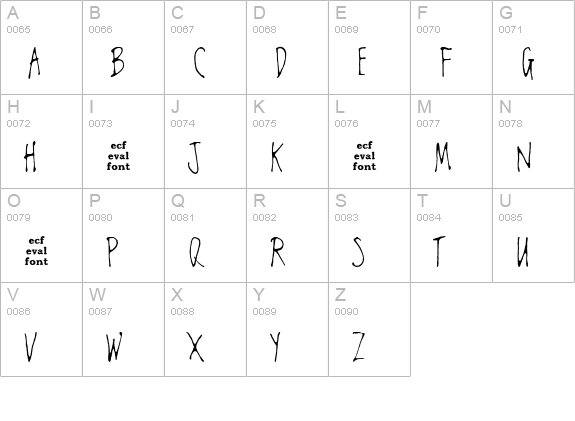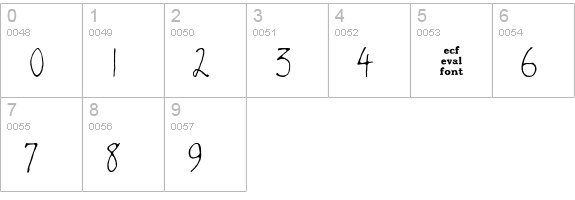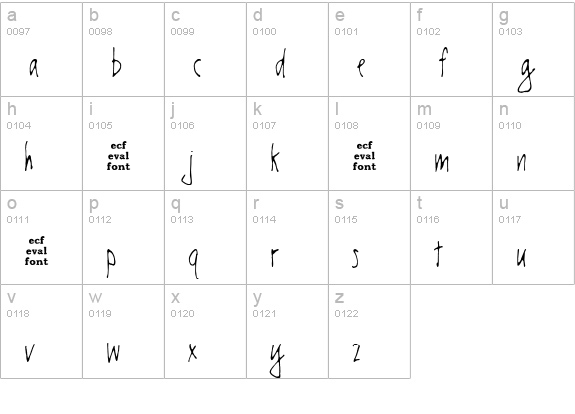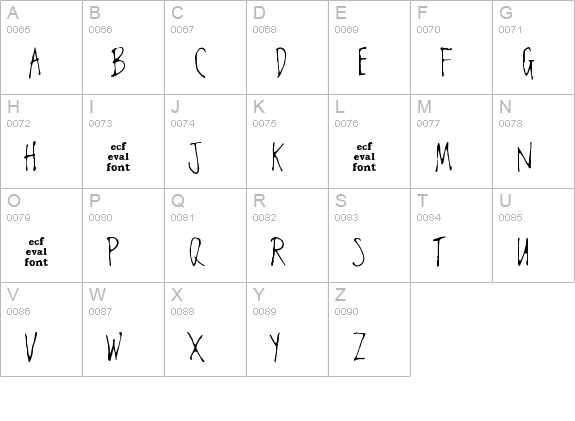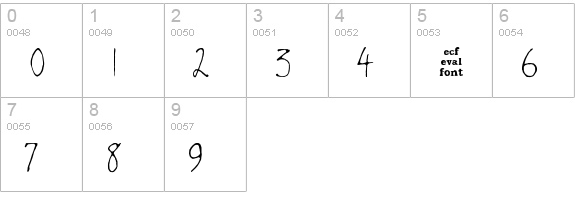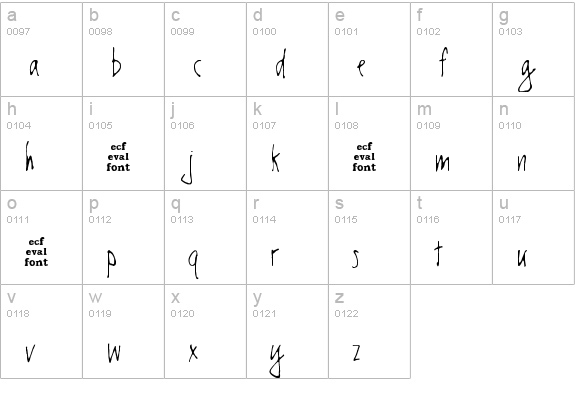
Chester Eval font is a modern and stylish typeface that exudes elegance and sophistication. It features sleek lines and a clean design that is perfect for a wide range of design projects. Whether you are creating a logo, a website, or a print design, Chester Eval font will add a touch of class to your work. What makes Chester Eval font even more appealing is that it is available for free download at FontsMarket.com. This means that you can easily access this beautiful font and use it in your projects without any cost. With its versatility and timeless appeal, Chester Eval font is a must-have for any designer looking to elevate their work to the next level.